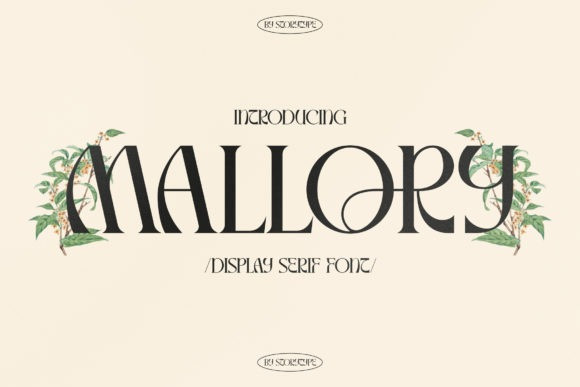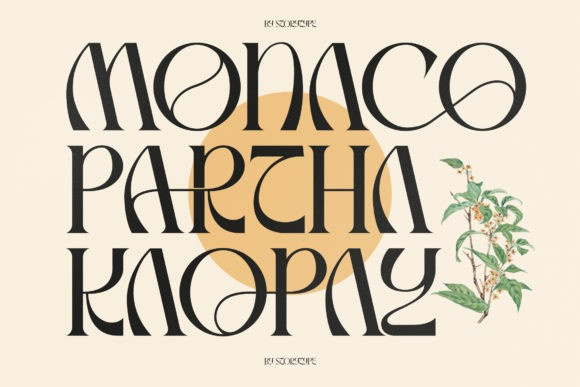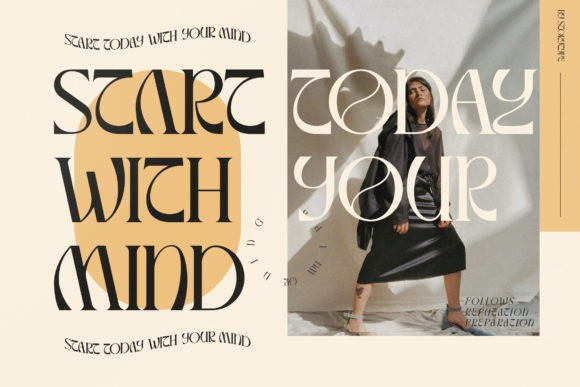
Mallory Serif Font
Proudly present Mallory Typeface, created by Storytype,
A serif modern and classic typeface that has own unique style & modern look.